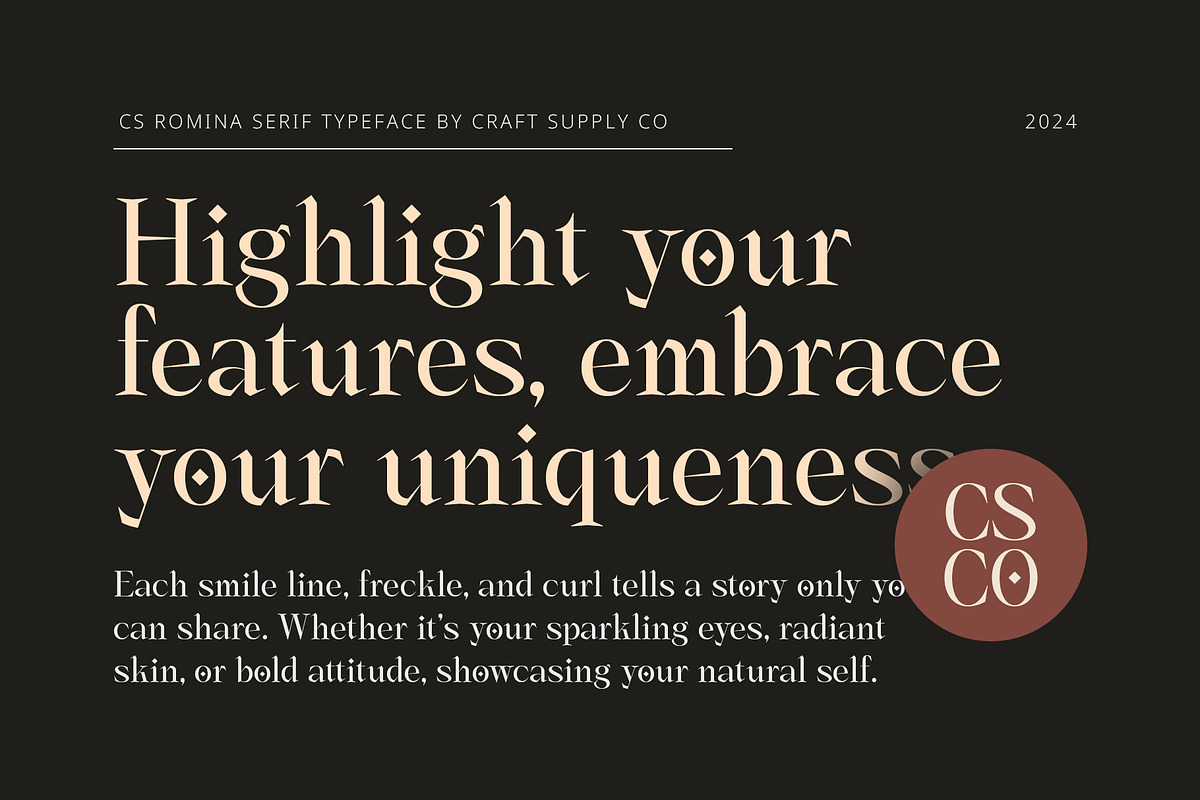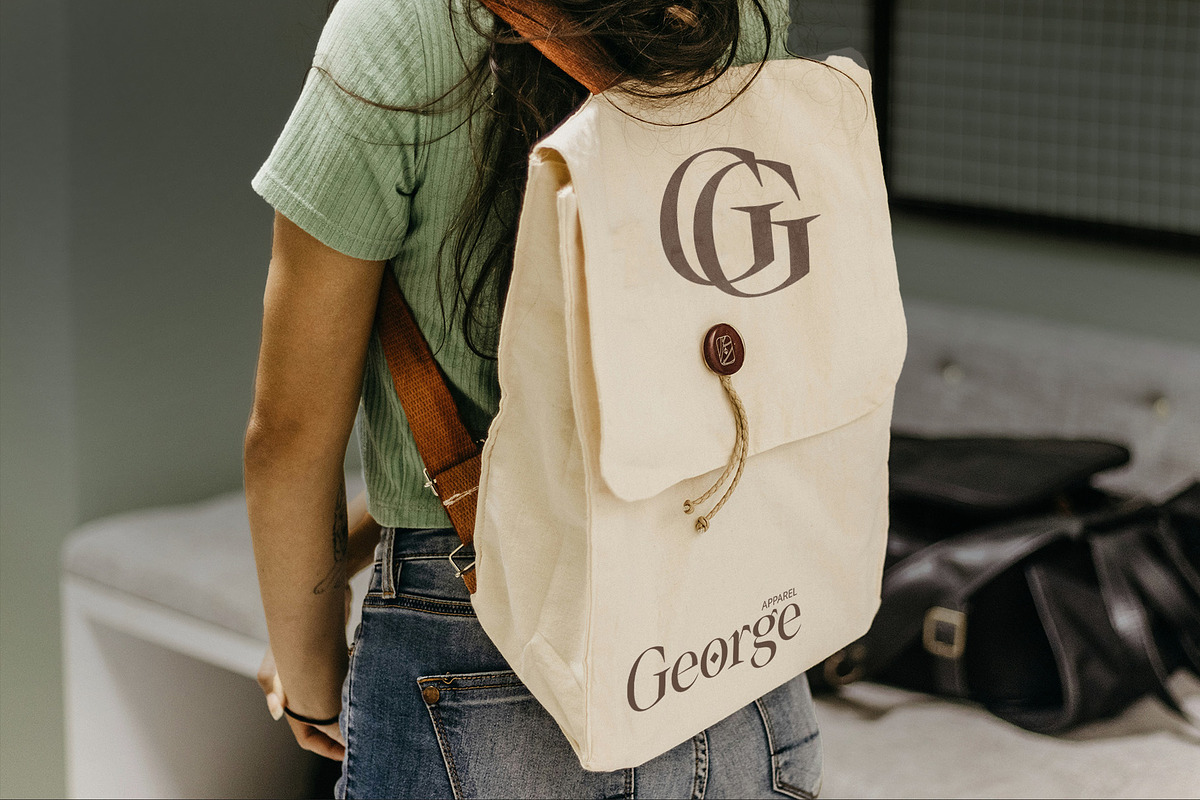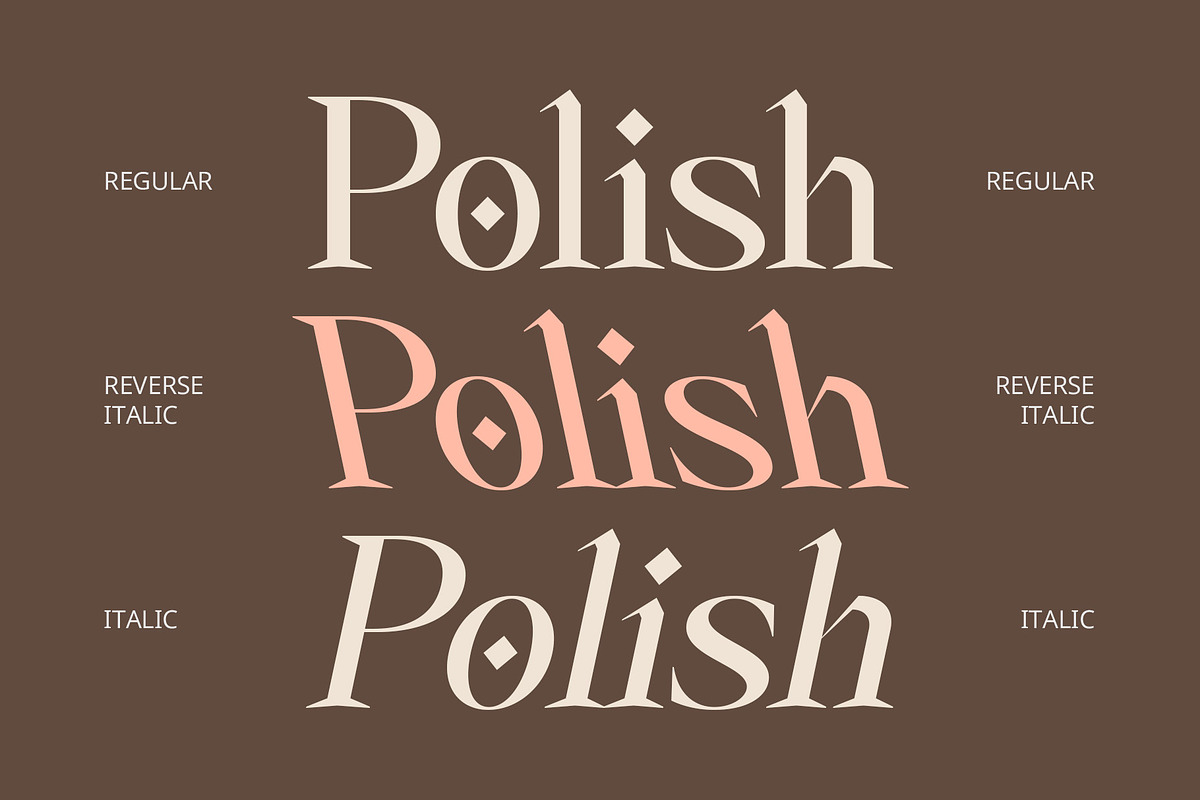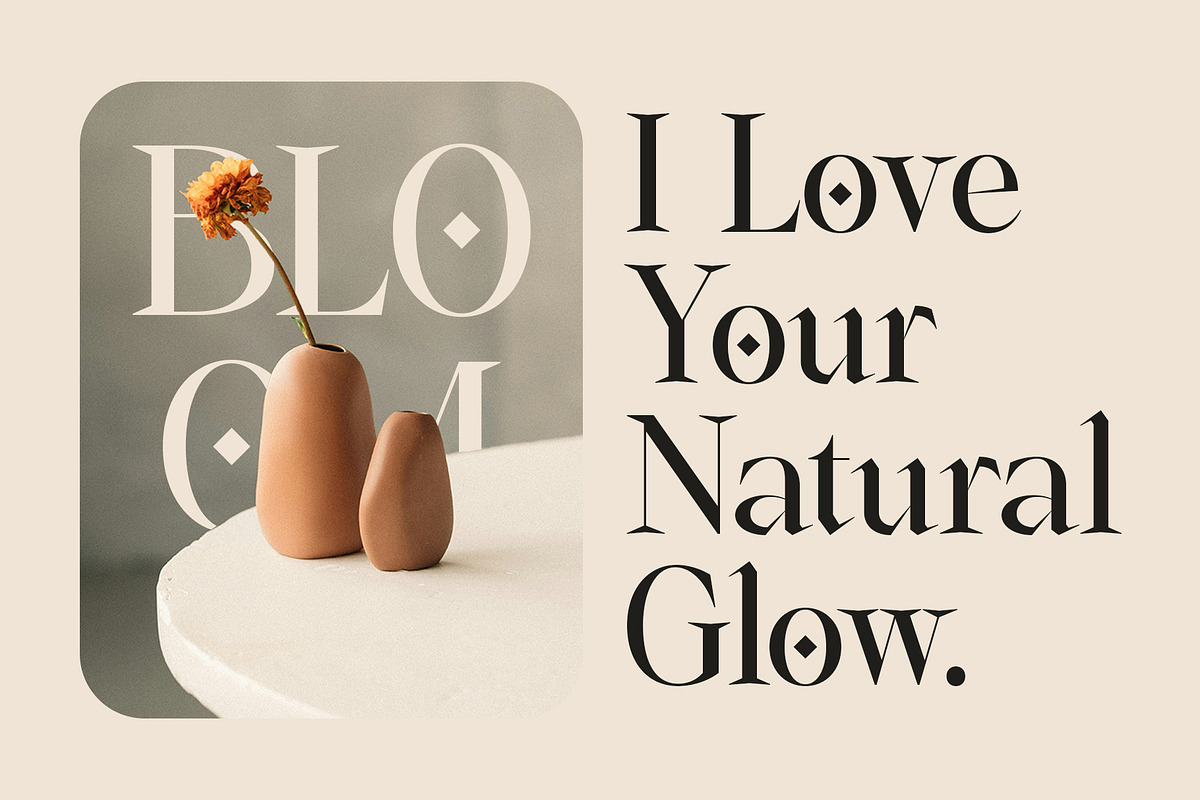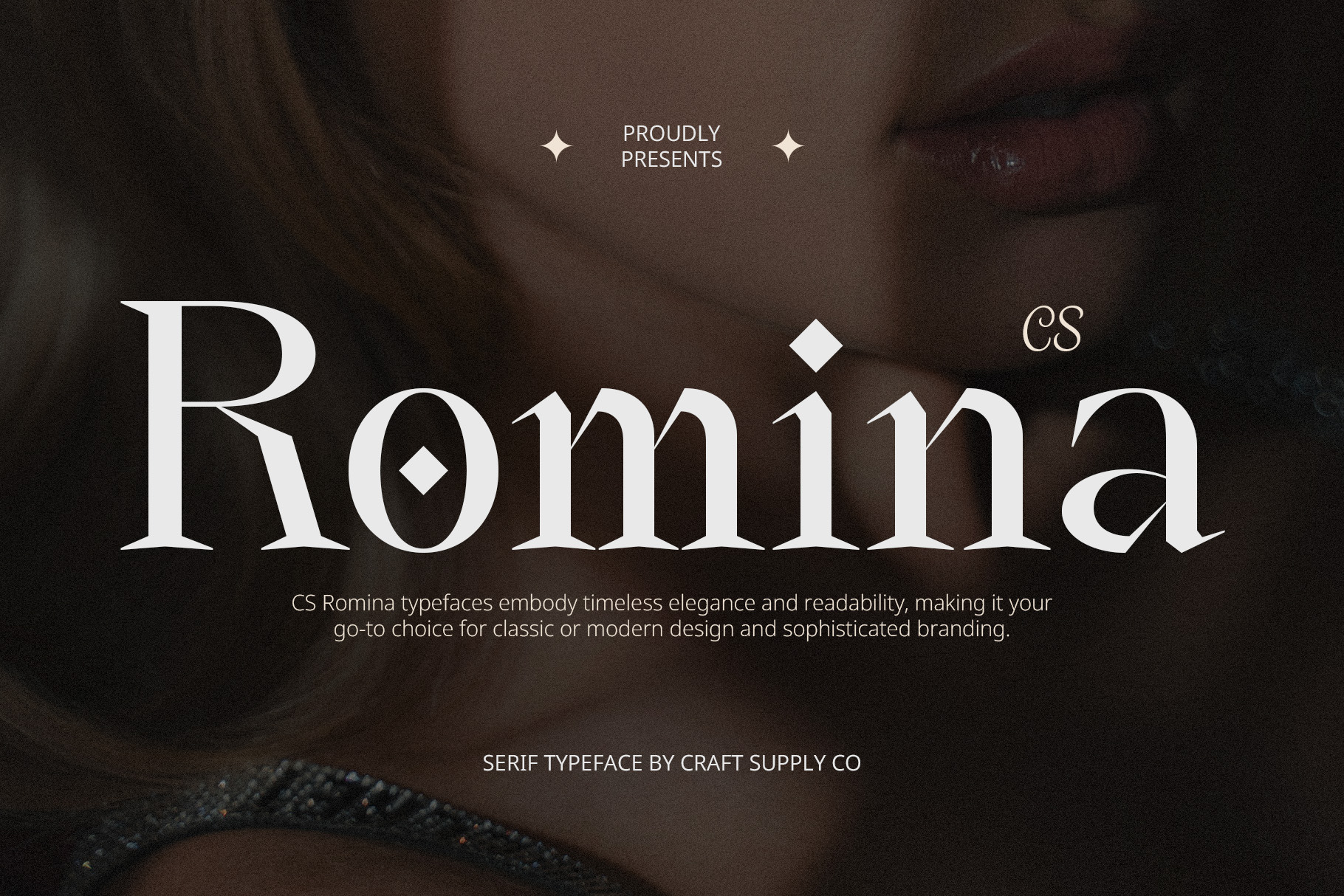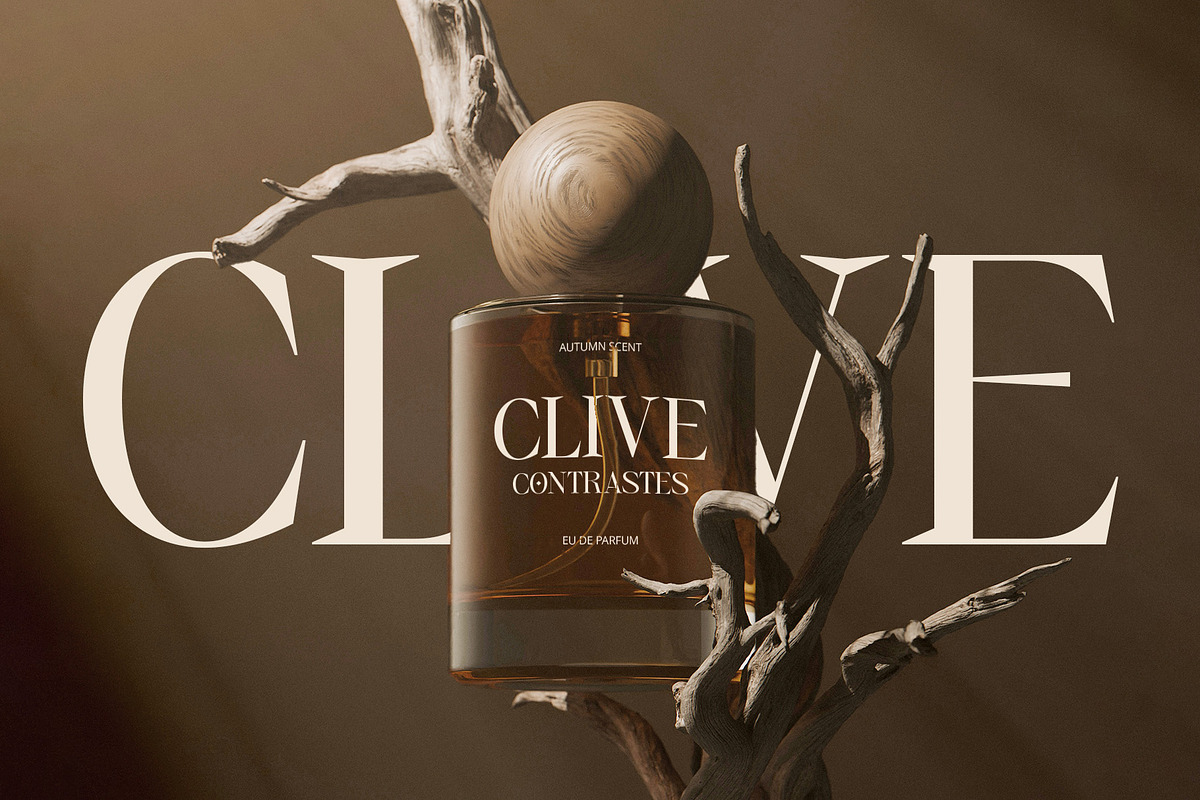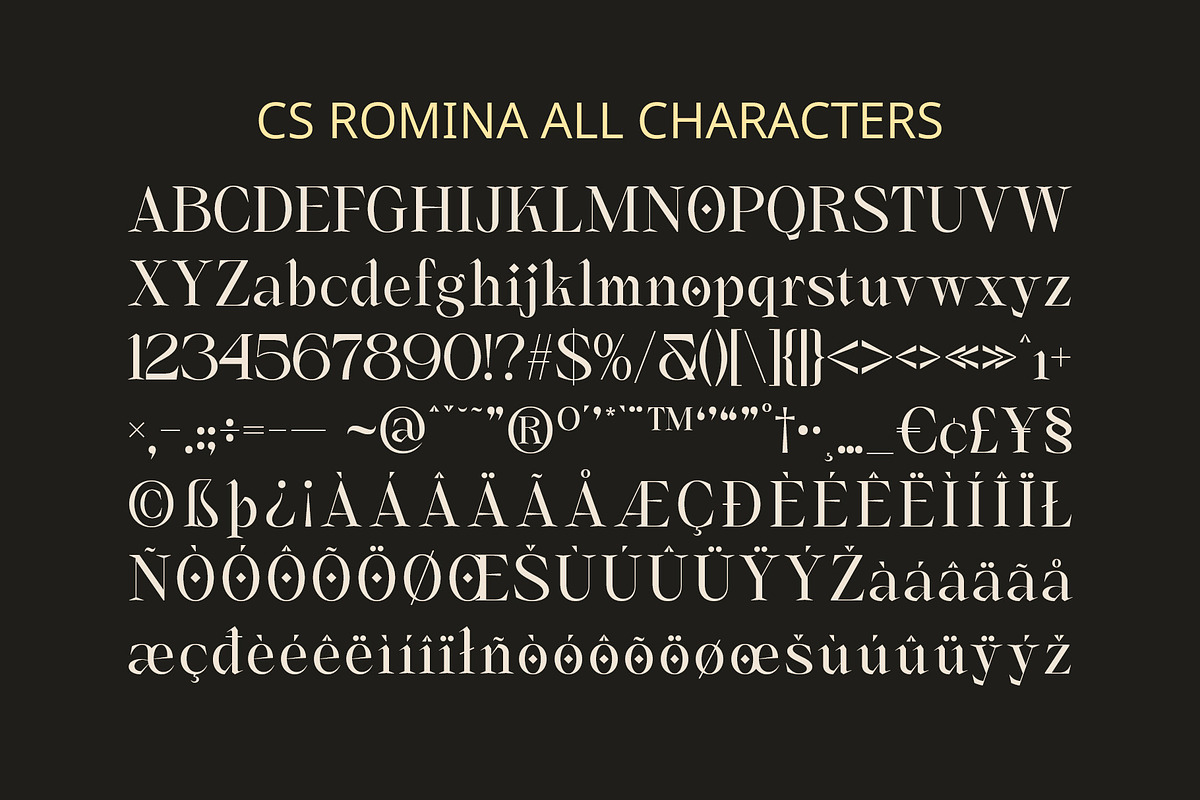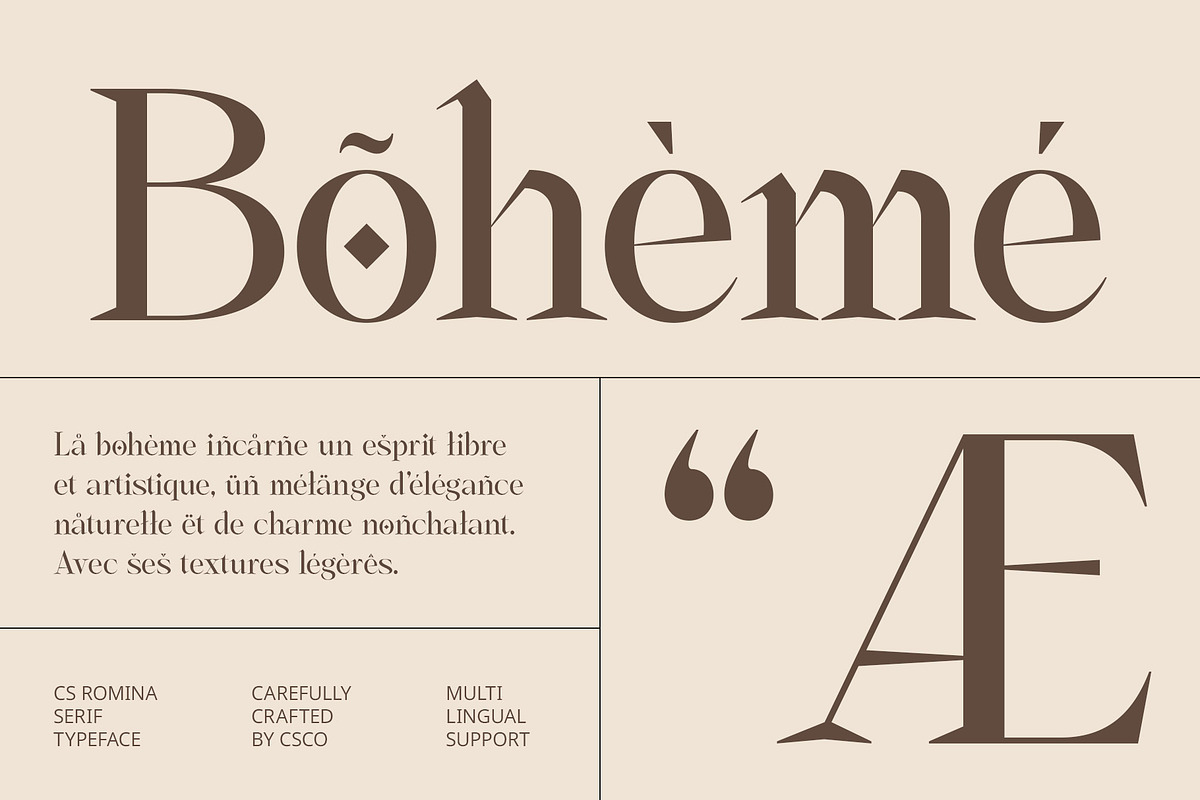
CS Romina – Elegant Font
CS Romina – Elegant Font: Refined Elegance with Contemporary Sophistication
A Luxurious Serif Font with Timeless Appeal CS Romina is a modern serif font meticulously crafted to evoke elegance and luxury. Its well-defined serifs and balanced proportions create a harmonious and upscale impression, perfectly suited for designs that demand a high-class look. The smooth, sharp lines and carefully structured letterforms offer a refined, polished appearance, while maintaining a contemporary flair that adds a touch of modern sophistication to any design.
Luxury Meets Professionalism in Every Detail Designed to convey opulence and professionalism, CS Romina strikes the perfect balance between classic grace and modern precision. Each letterform is meticulously crafted to ensure clarity, readability, and visual appeal, with its clean lines offering a sense of organized sophistication. The font’s luxurious feel comes from its subtle details.
Ideal for High-End Design Applications Perfect for high-end branding and corporate projects, CS Romina excels in luxury product branding, fashion editorials, formal invitations, and corporate identity designs. Its prestigious presence is ideal for projects that require a refined and upscale aesthetic, making it a top choice for designers seeking to elevate the visual impact of their work.